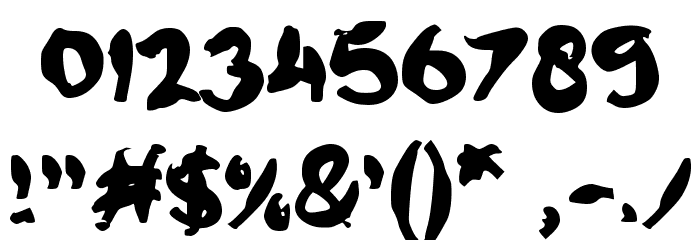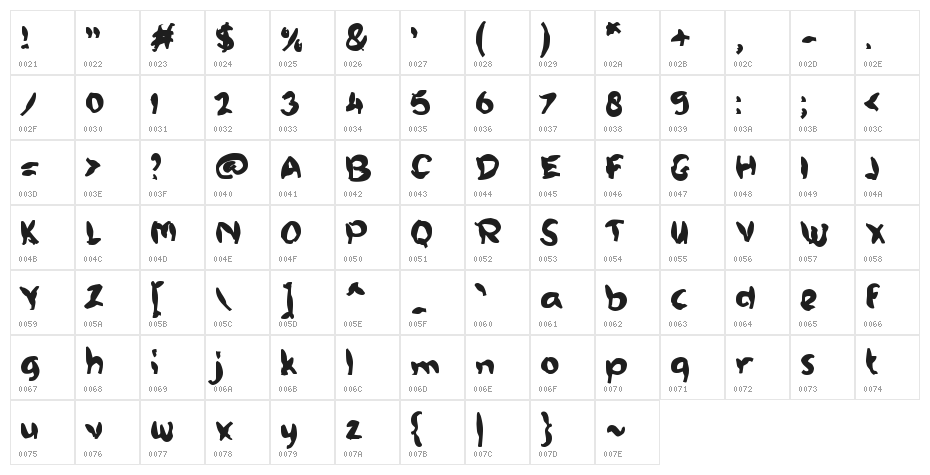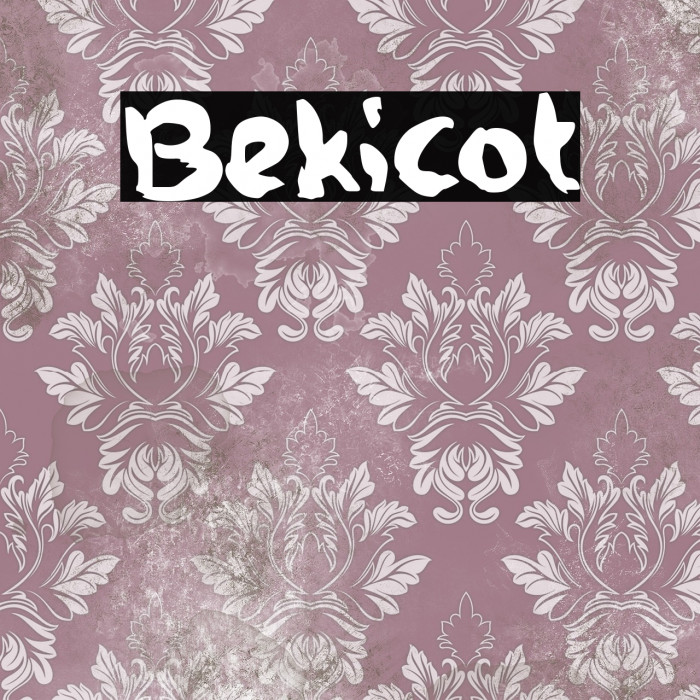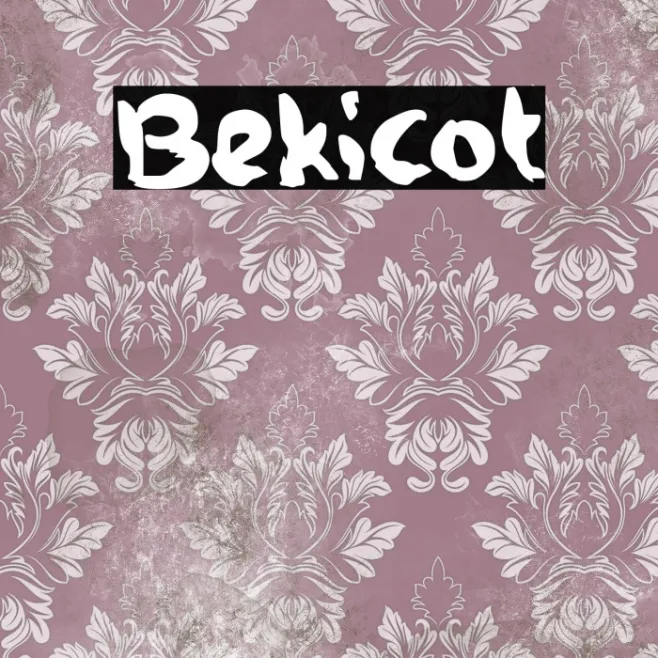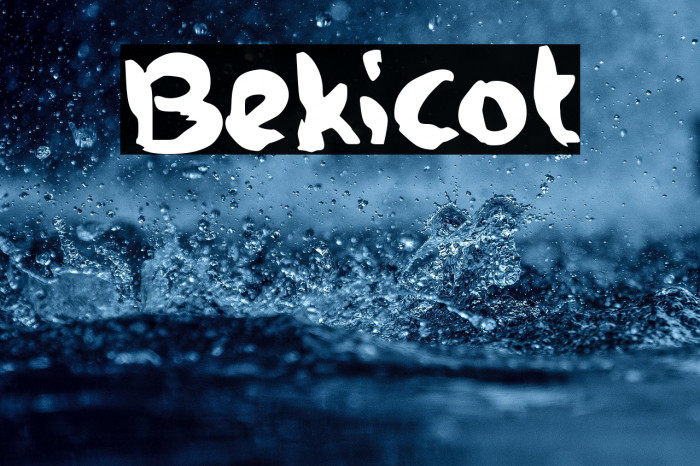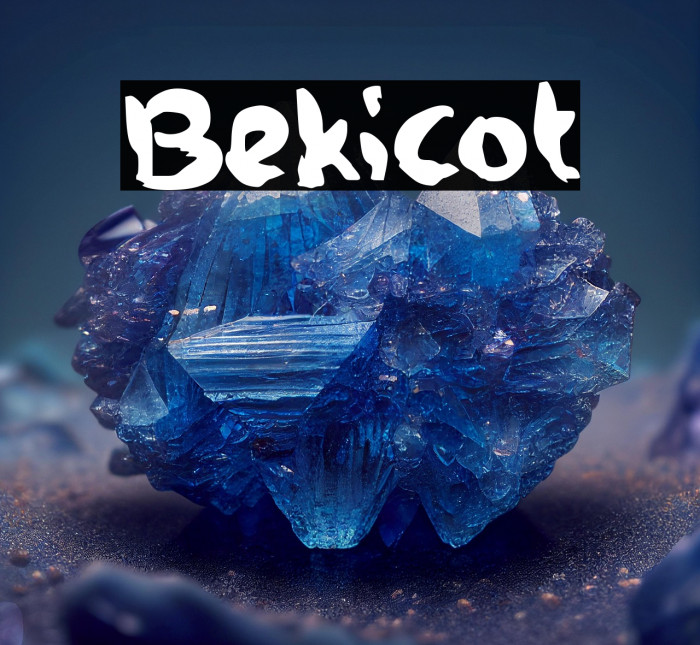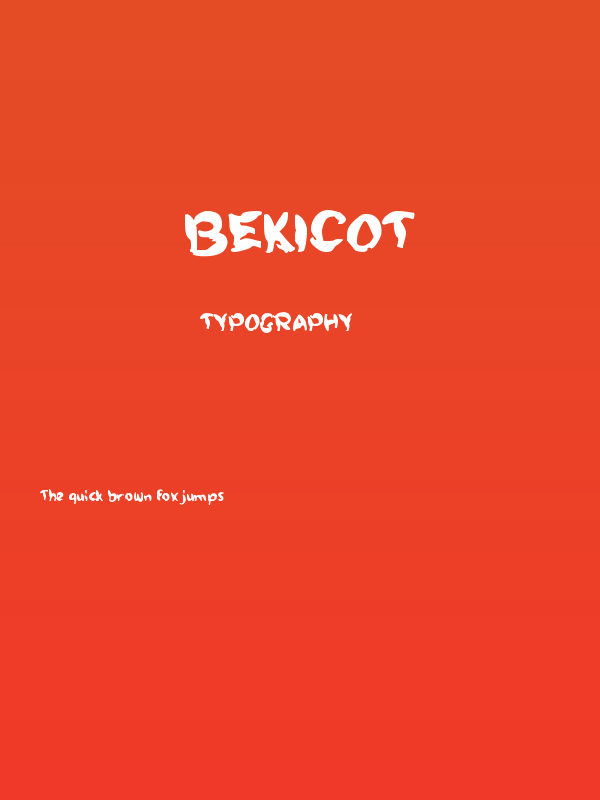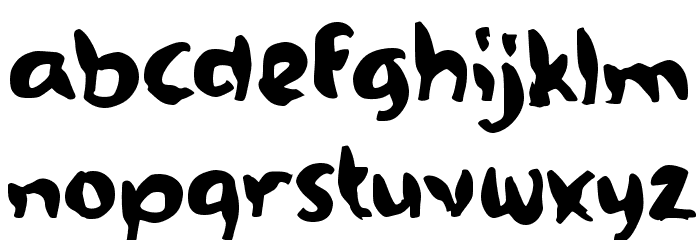
Bekicot Font
Bekicot Description
This font features a bold and expressive style with a hand-drawn appearance. The characters are irregular and organic, giving a dynamic and lively feel. The strokes are thick and vary in width, adding to the playful and artistic nature of the font. It has a casual and informal vibe, making it suitable for creative and fun projects. The overall design is reminiscent of brush or marker writing, with a slightly rough texture that enhances its handcrafted look.
| Proposed Projects | Ideal for posters, children's books, creative branding, and artistic designs. |